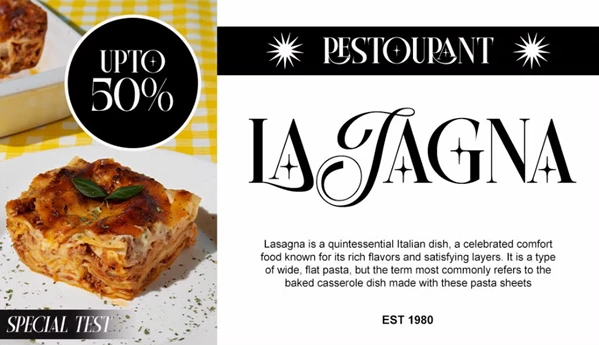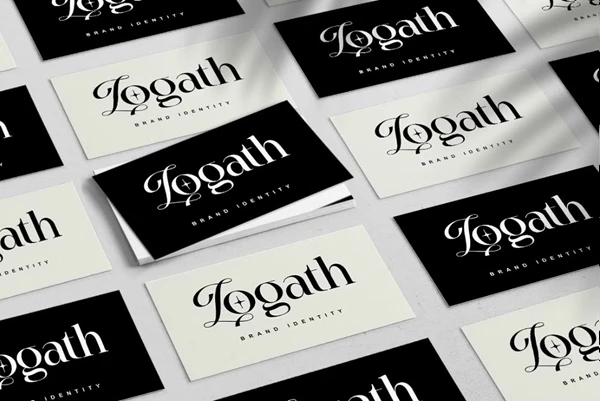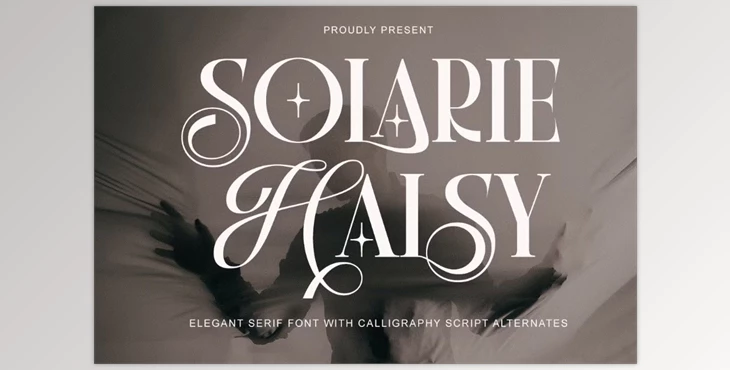
Solarie Halsy - Elegant Serif Font:
Solarie Halsy is a serif font family with calligraphy script styled alternates, which makes it different from all other serifs. An extensive and masterfully balanced typeface operates beautifully for headlines, titles, and shorter typesetting. Perfect in the realms of advertising, branding, vintage, logotype, packaging, editorial, modern logos, social media quotes, and even wedding branding, contemporary or vintage.
- Calligraphy Script Alternates
- Stylish Ligatures